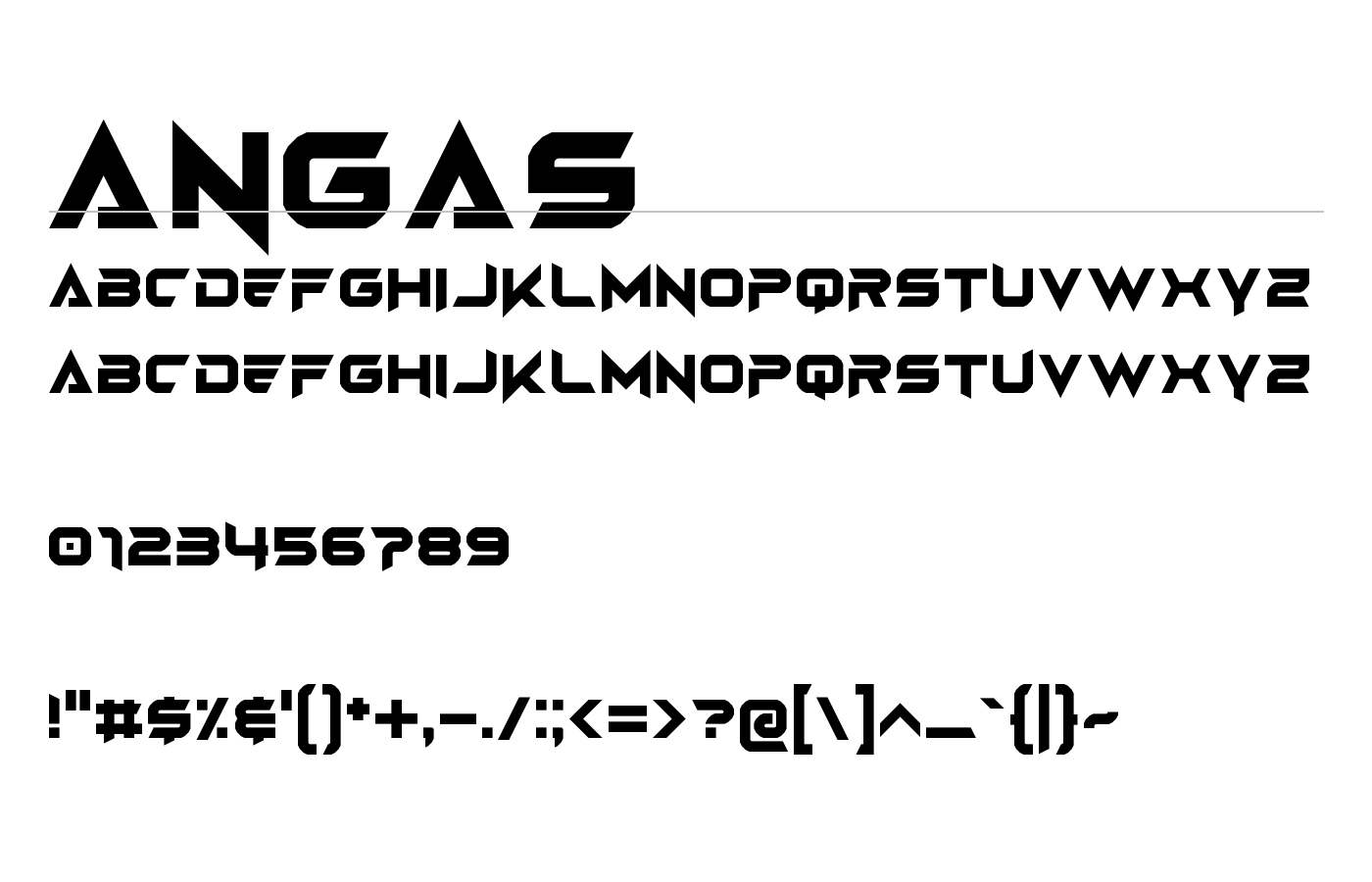
Angas is a bold, geometric sans serif font with a futuristic, angular design characterized by sharp edges and strong lines. Its condensed structure and unique, stylized letterforms give it a modern, tech-inspired look, making it ideal for logos, headlines, and branding that aims for a cutting-edge, dynamic impression. This font works especially well in contexts where a bold, impactful statement is needed, such as in technology, gaming, or sports-related designs.
Angas Font
About Angas Font
| Font family | Angas Font |
| Designer | Jéson Garnica |